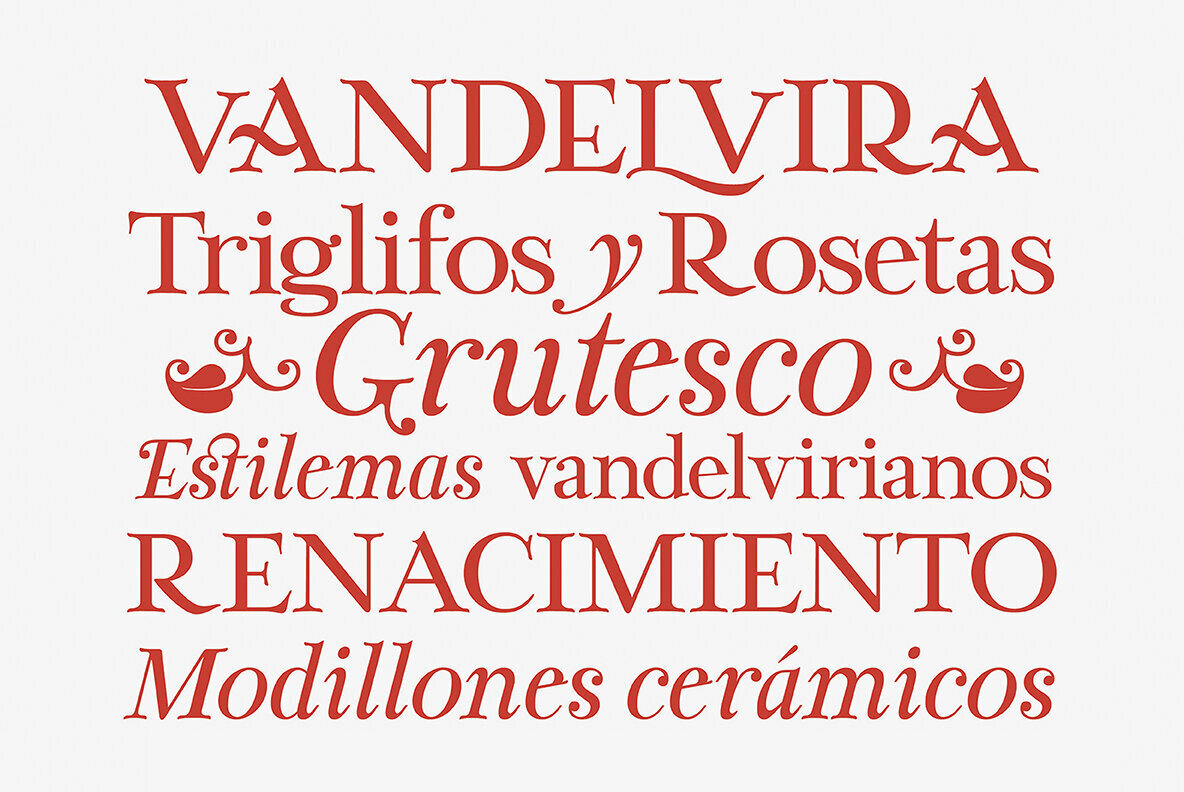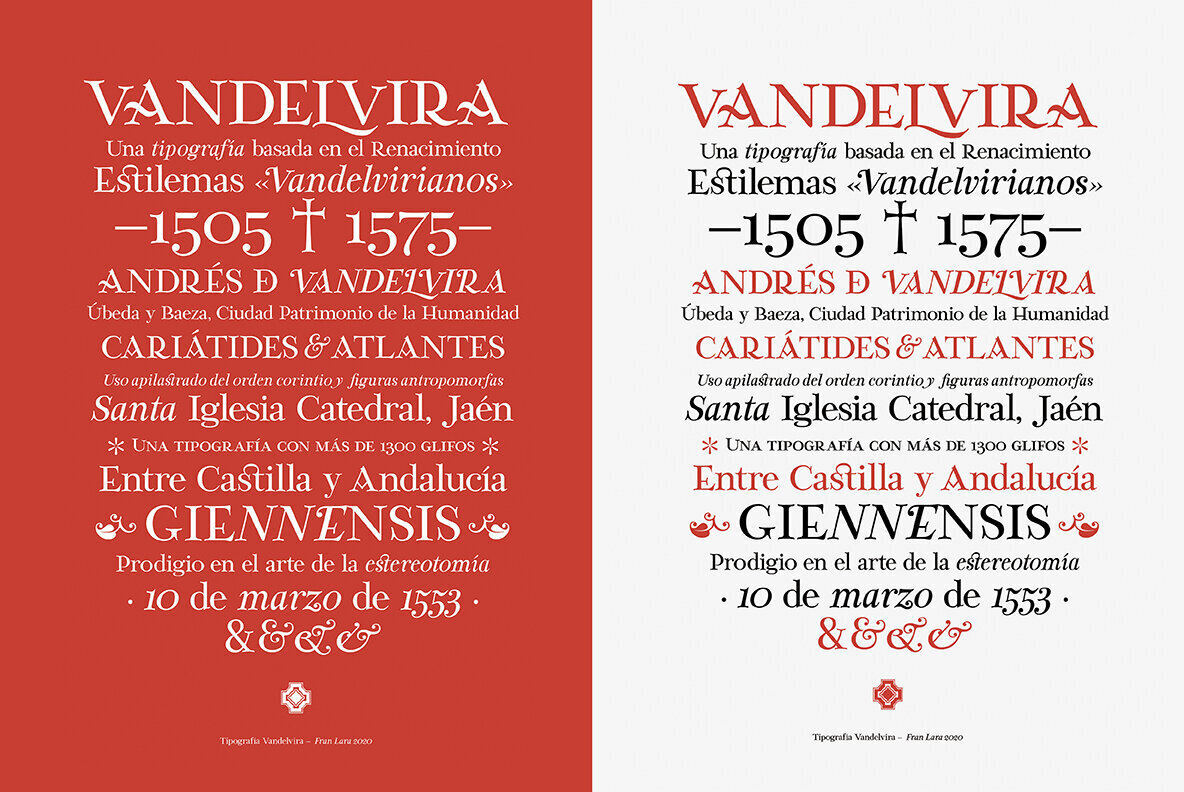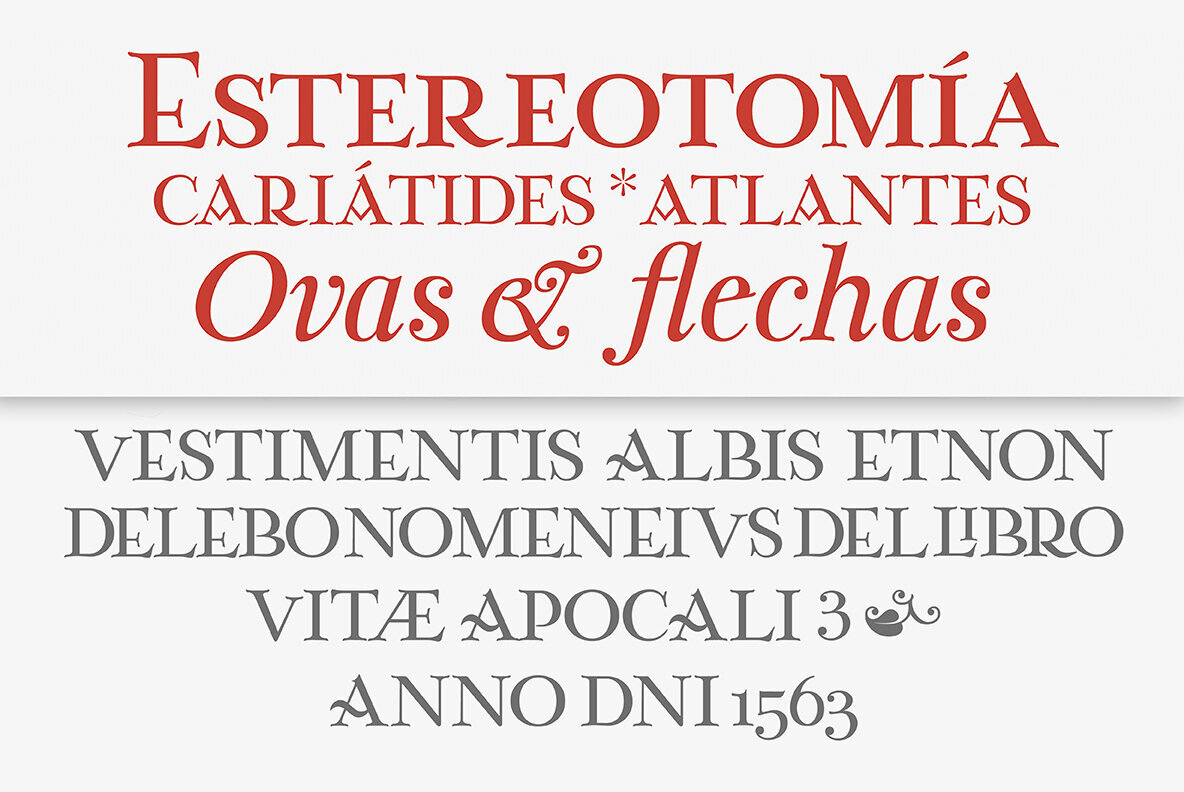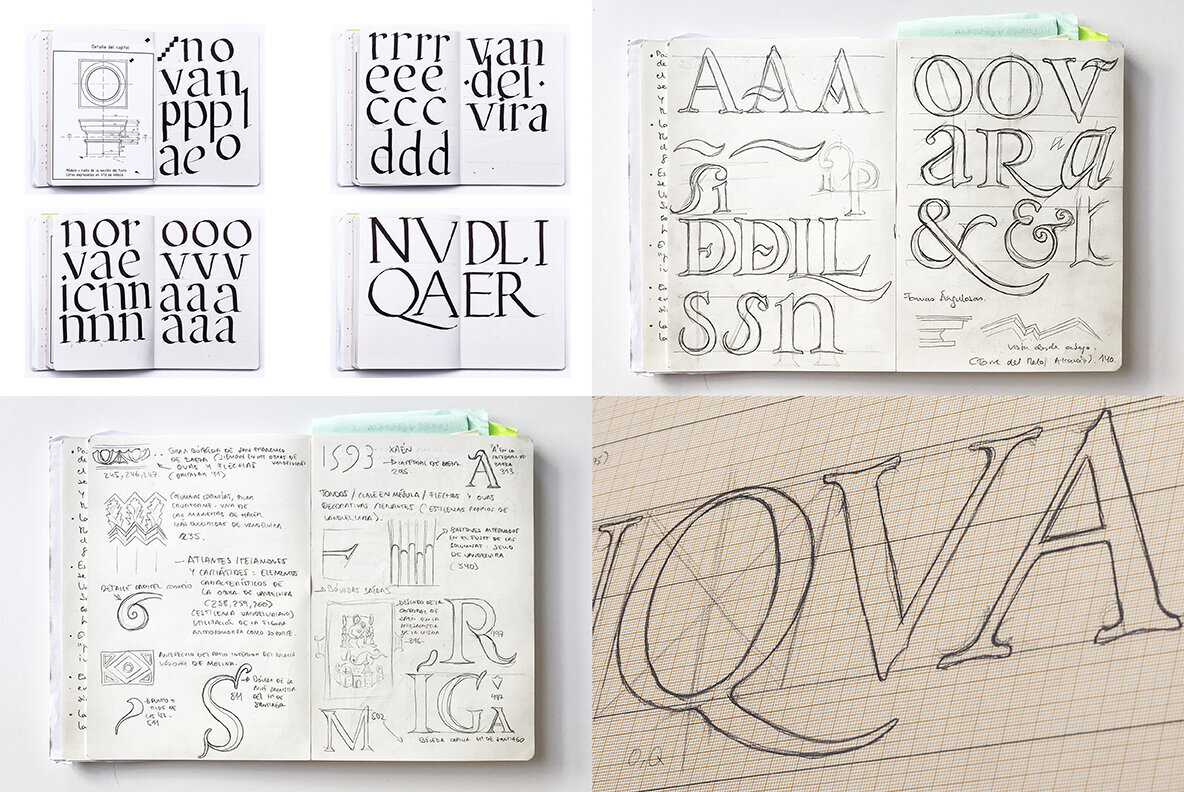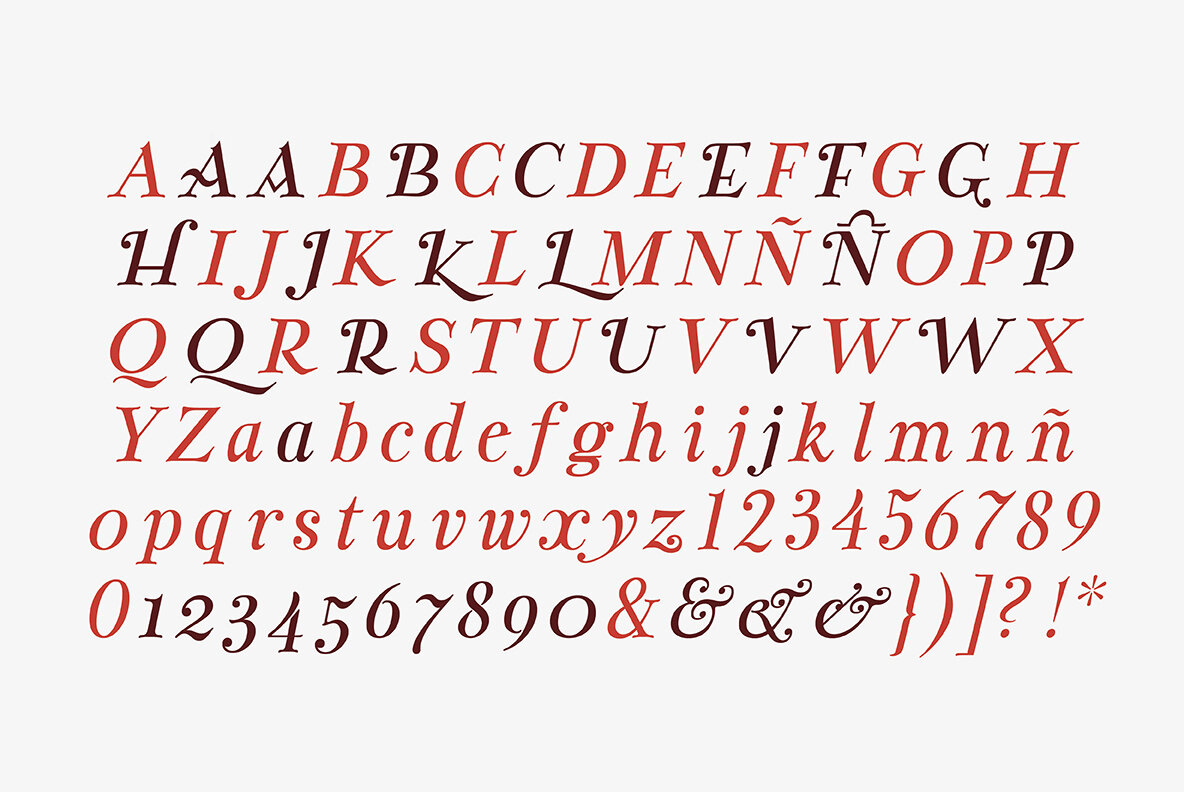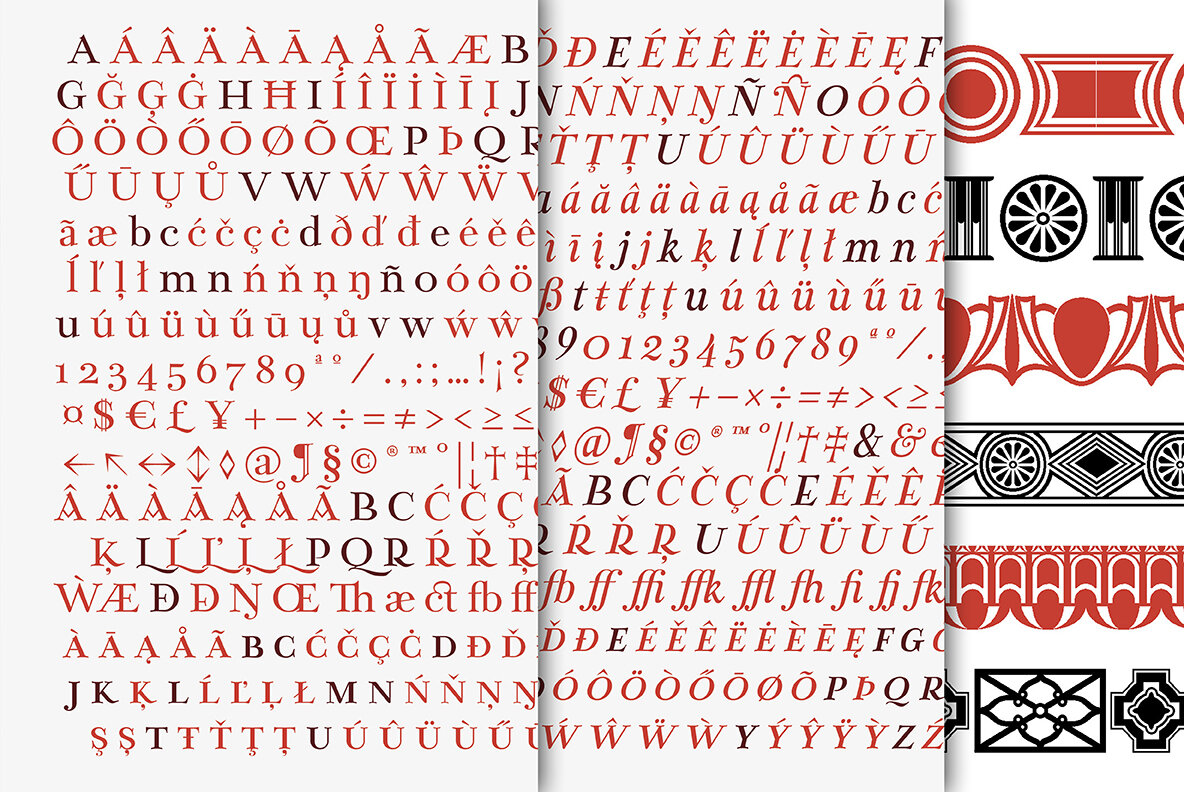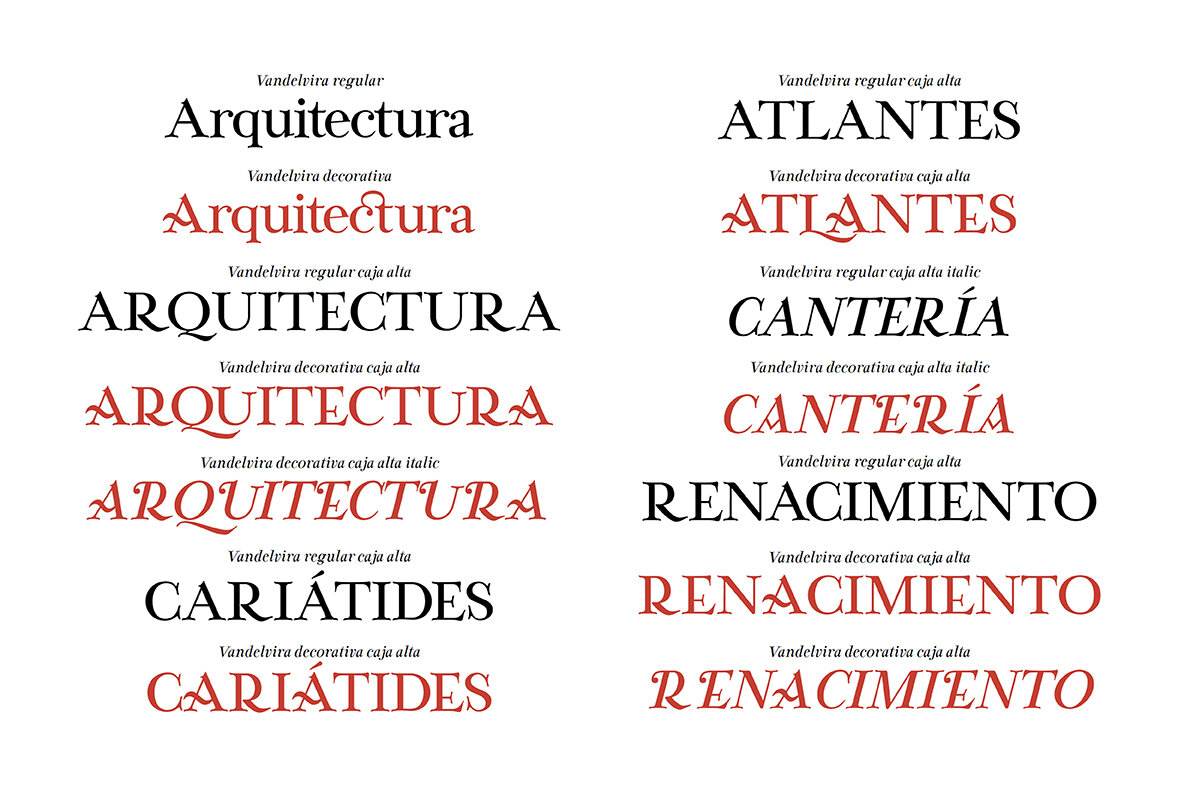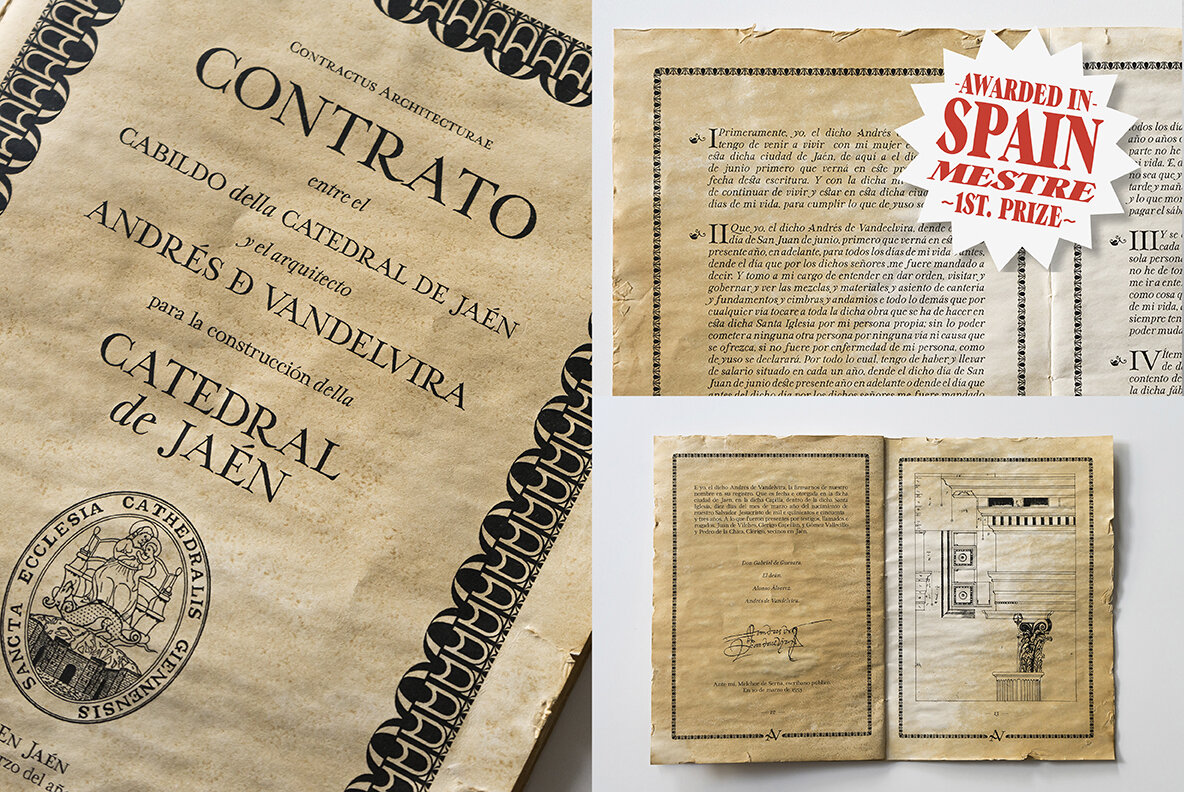
Vandelvira is a typographic project that delves into the historical legacy of the province of Jaén (northern Andalusia), aimed to spread the culture and tradition of this territory, based on one of its greatest artistic exponents: the architect Andrés de Vandelvira. In the forms and ornaments of these letters, the characteristics of his work during the 16th century are graphically reflected, and it serves as a memory and honor, as a historical legacy of this marvelous "genius loci" of the Spanish Renaissance.